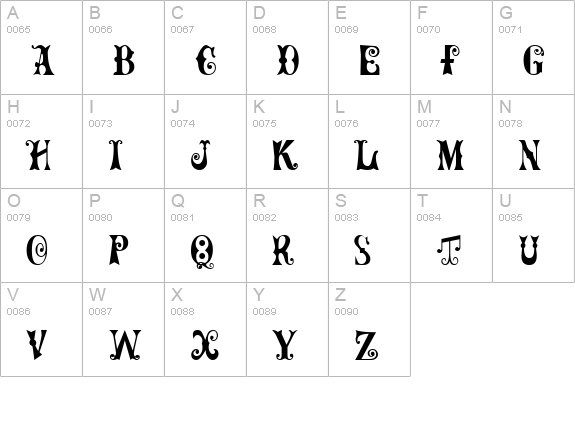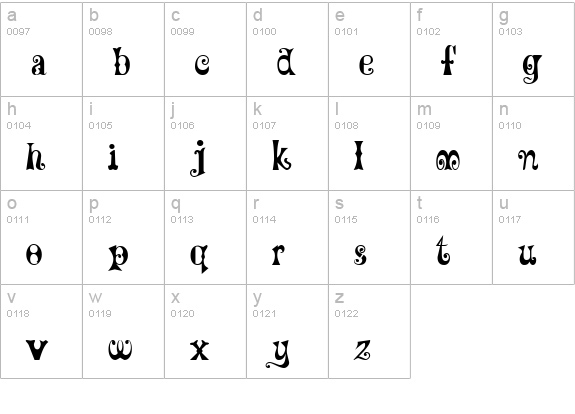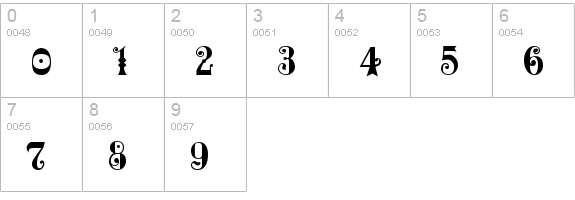
Mardi Gras Font Details
Introducing Mardi Gras font, a vibrant and energetic typeface that captures the essence of the festive Mardi Gras celebration. With its playful and whimsical design, this font is perfect for adding a touch of excitement and liveliness to your projects. Mardi Gras font features intricately designed letters that are adorned with decorative elements inspired by the flamboyance and exuberance of the carnival spirit. Each character is carefully crafted to evoke a sense of joy and celebration, making it an ideal choice for party invitations, event posters, greeting cards, and more. What makes Mardi Gras font even more enticing is that it is freely available to download at FontsMarket.com. This means that you can easily access this captivating font without any cost, allowing you to add a dash of festive flair to your designs without breaking the bank. Whether you're looking to create eye-catching headlines, add a festive touch to your social media posts, or design captivating banners, Mardi Gras font is your go-to choice. Its versatility and bold personality make it a perfect fit for a wide range of creative projects. So, don't miss out on the opportunity to enhance your designs with the free Mardi Gras font. Visit FontsMarket.com today and let the vibrant spirit of Mardi Gras shine through your typography.